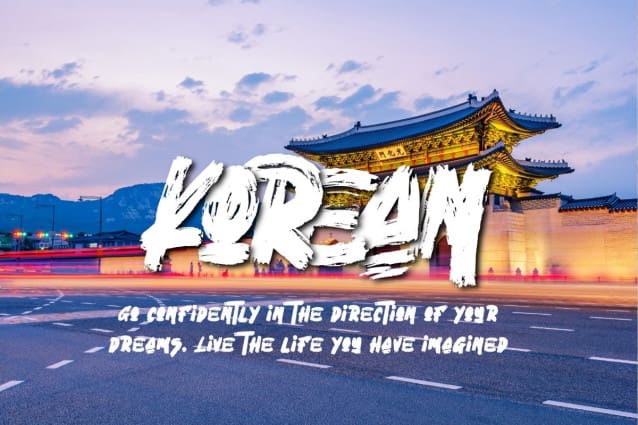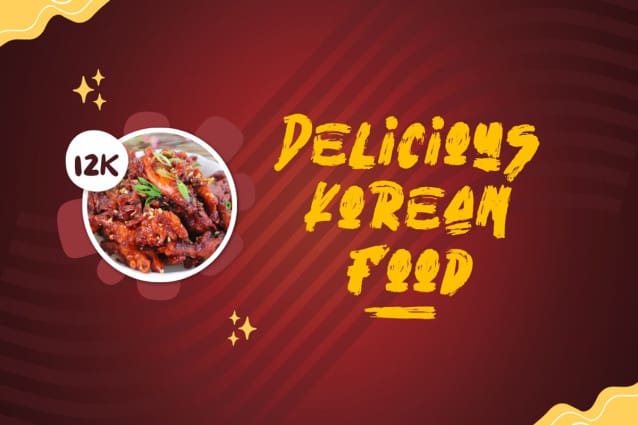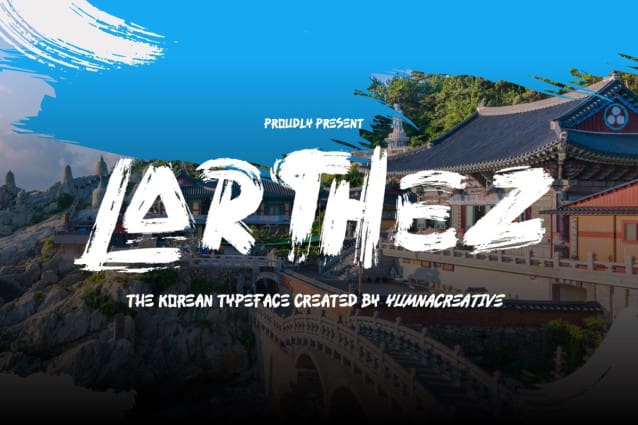
Larthez Brush Font
Larthez Brush Font is natural textured brush font, and perfect for any design project that requires a strong and assertive look. This typeface is ideal for posters, logos, and ads. Its versatility and flexibility make it suitable for various design styles, and its textured feel adds depth and character to any project.